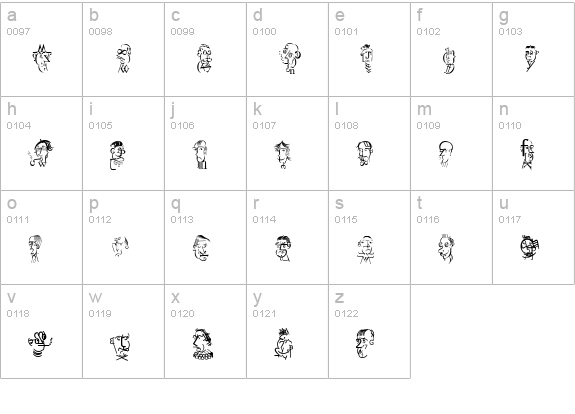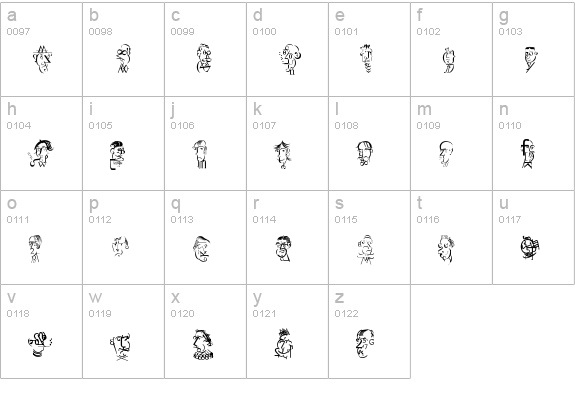
Antypepatics Font Details
Antypepatics is a stylish and sophisticated font that exudes elegance and modernity. With its sleek lines and unique letterforms, this font is perfect for adding a touch of sophistication to any design project. Whether you're working on a branding project, a website design, or a social media graphic, Antypepatics is sure to make a statement. One of the best things about Antypepatics is that it is completely free to download. That's right, you can get your hands on this stunning font without having to spend a dime. Simply head over to FontsMarket.com and download Antypepatics to start using it in your projects today. With its versatility and timeless appeal, Antypepatics is a must-have font for any designer looking to elevate their work to the next level. Add a touch of sophistication to your designs with Antypepatics today.